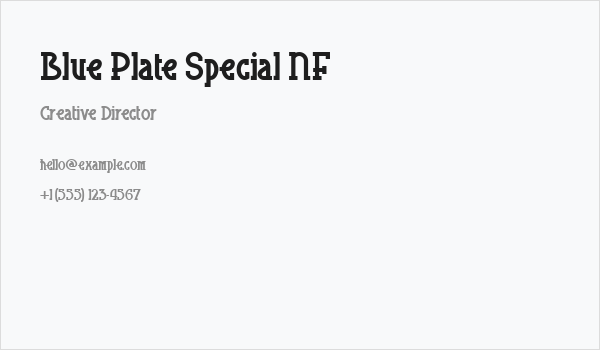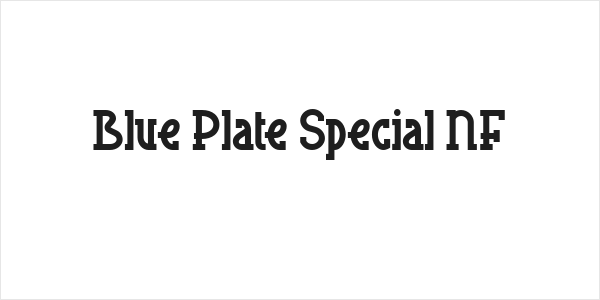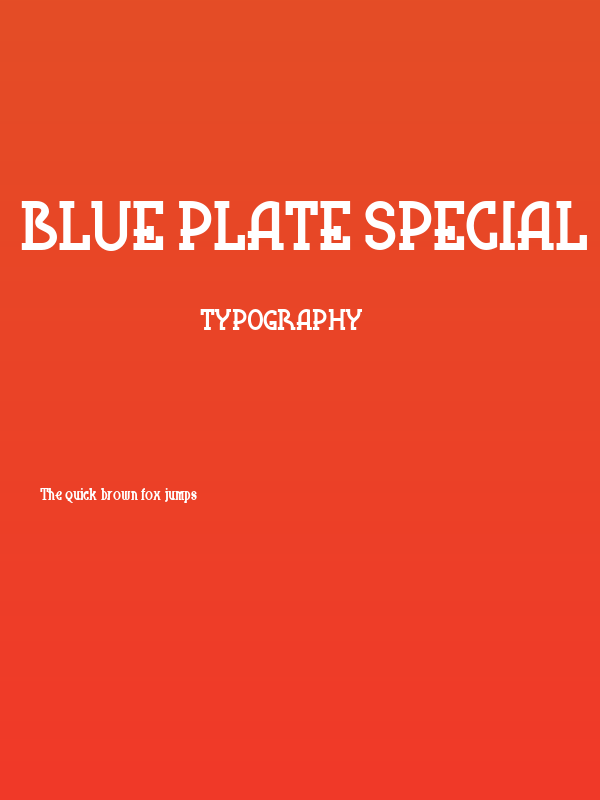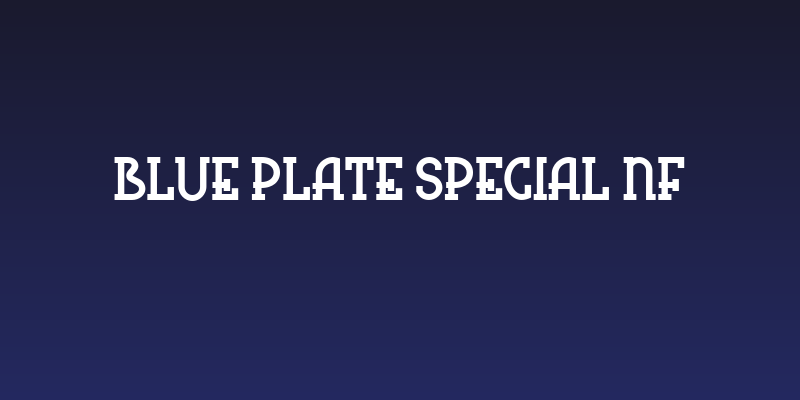
Blue Plate Special NF Font
Blue Plate Special NF Description
This font features a bold and distinctive style with a strong presence, characterized by its slab serif design. The uppercase letters have a unique, blocky appearance with geometric elements, while the lowercase letters maintain a consistent weight and structure. The numerals are bold and clear, making them easily readable. Special characters are designed to match the overall aesthetic, providing a cohesive look across all elements. The font's boldness and unique style make it suitable for eye-catching designs.
| Proposed Projects | Ideal for posters, headlines, logos, and branding materials where a strong, memorable impression is desired. |